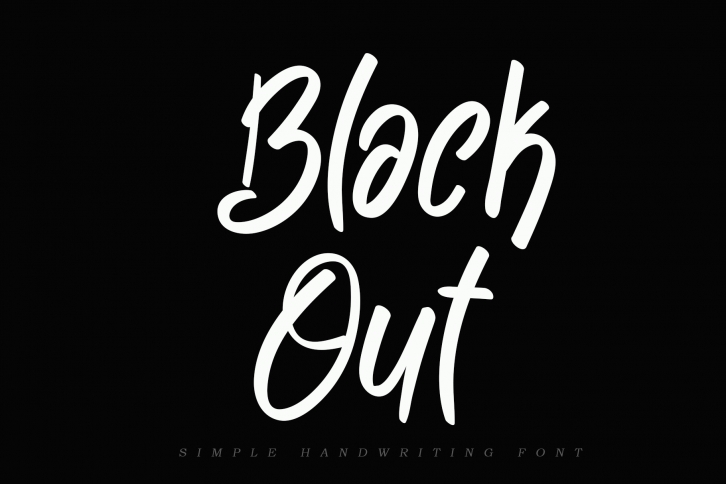
Black Out is a magical handwritten font carefully created to give a touch of elegance to your designs. Whether you’re looking for fonts for Instagram or calligraphy scripts for DIY projects, this font will turn any creative idea into a true piece of art!